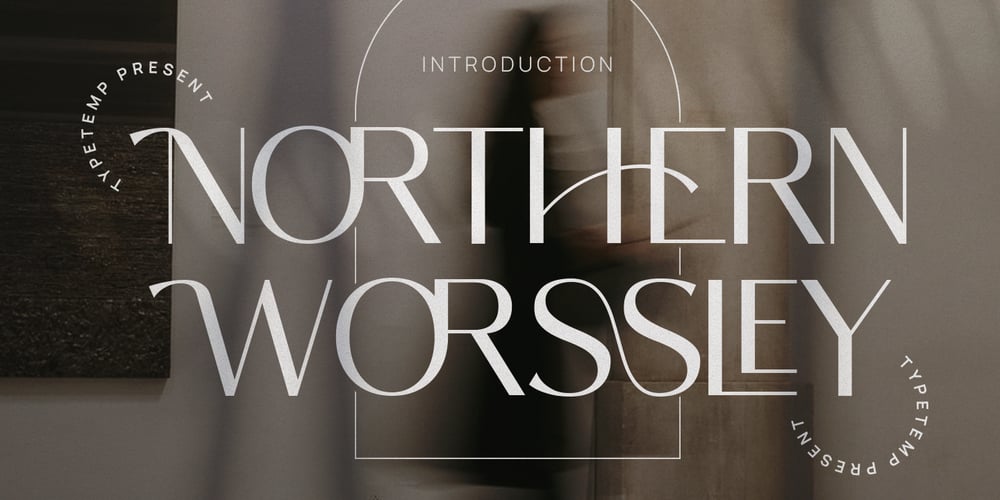
Northern Worssley Ligature Font Family was designed by Egi Ahmad Mufid and published by Typetemp Studio. Northern Worssley Ligature contains 1 styles and family package options. Northern Worssley is a made with a stylish elegant and modern touch, this font is ready to use with your brand and design, Access your OpenType features to access the large selection of alternate letters and ligatures, select the letters you like from the large variety to get the display font you like.This font with alternatives, ligatures, and multilingual support. Perfect for editorial projects, Logo design, Clothing Branding, product packaging, magazine headers, or simply as a stylish text overlay to any background image.Features : Uppercase and Lowercase Stylistic Alternates & Ligatures Numerals & Punctuation Multilanguange PUA Encoded Web Font Included Language Support • English, French, Italian, Spanish, Portuguese, German, Swedish, Norwegian, Danish, Dutch, Finnish, Indonesian, Malay, Hungarian, Polish, Croatian, Turkish, Romanian, Czech, Latvian, Lithuanian, Slovak, Slovenian.Contact me with an inbox message If you have any question. Thank you! Happy Creating